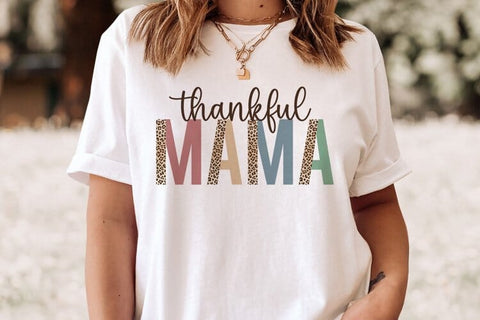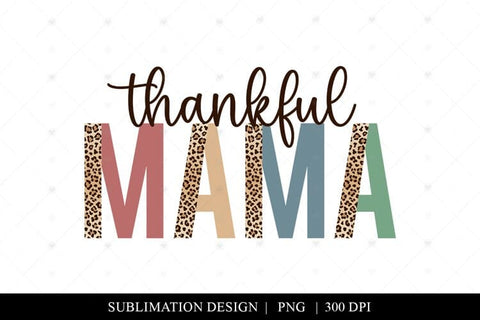
Thankful Mama Png, Fall T-Shirt Sublimation Design
Embrace the gratitude of motherhood with our Thankful Mama PNG design. This eye-catching and stylish text-based artwork features the words "Thankful Mama" beautifully crafted in a unique combination of half leopard and autumn colors. Instantly download this fall-inspired sublimation design file and elevate your wardrobe with a touch of seasonal charm. Perfect for creating your own custom fall t-shirts and apparel, this digital download allows you to express your gratitude and celebrate the joys of motherhood in style. Add a heartfelt and trendy statement to your Thanksgiving celebrations with this autumn-themed design. Get your instant digital download today and let your gratitude shine.